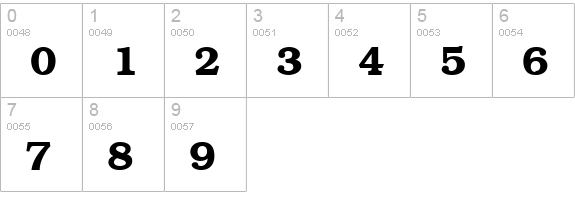
TR Bookman Bold Font Details
TR Bookman Bold is a strong, high-contrast variant in the TR typeface family \xE2\x80\x94 well suited to headlines, attention-grabbing titles, and strong calls-to-action.
TR Bookman Bold is a timeless and classic font that exudes elegance and sophistication. With its sturdy serifs and strong presence, this font is perfect for creating bold headlines and attention-grabbing designs. Its clean lines and distinct letterforms make it highly readable and versatile for various design projects. The best part is that TR Bookman Bold is available for free download at FontsMarket.com. Now you can elevate your designs with this iconic font without any cost. Don't miss this opportunity to add TR Bookman Bold to your font collection and unlock a world of creative possibilities. Download it now and start creating stunning designs that stand out from the rest.